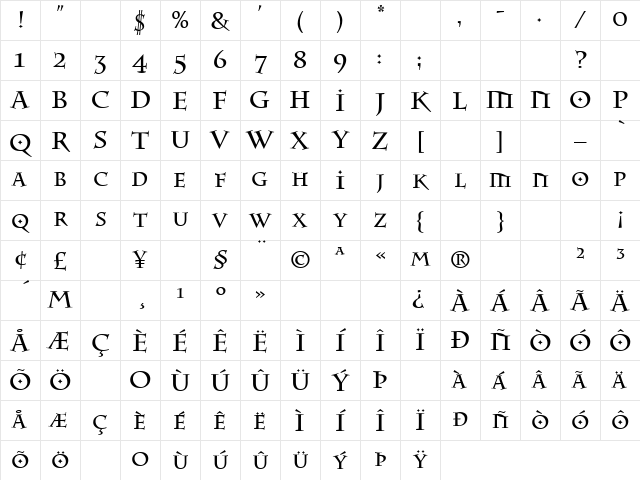
Parish Light Free Font
Parish Light
Design Context for Parish
Parish is a composed and adaptable typeface that performs quietly and consistently across a wide range of design contexts. Its slender proportions lend an understated elegance to any composition.